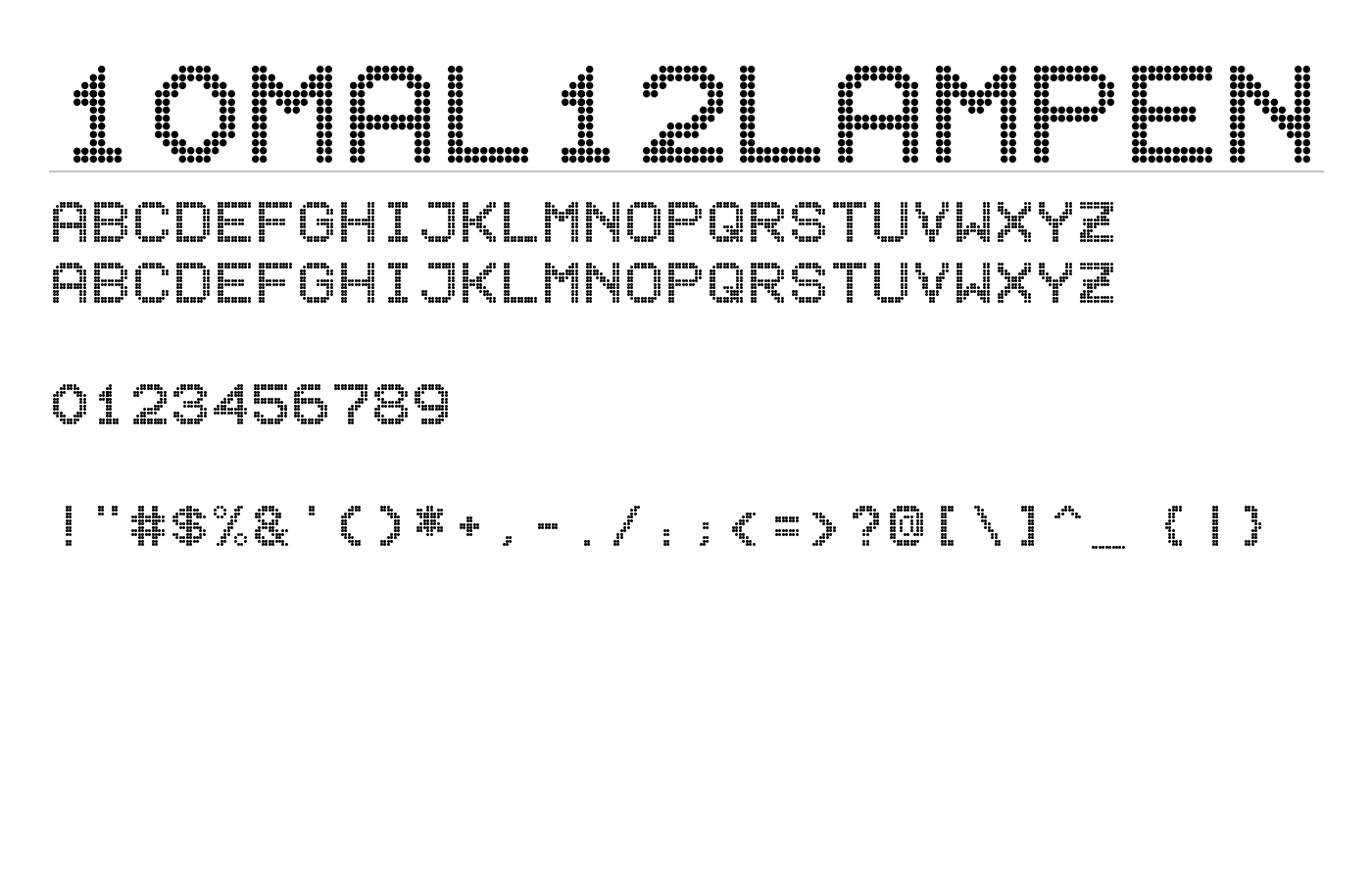
10mal12Lampen is a unique monospaced display font composed of small, evenly spaced dots forming clean, geometric letterforms. Its digital, tech-inspired style with consistent weight and minimal stroke contrast makes it perfect for futuristic or retro-futuristic designs, especially in logos, posters, and digital interfaces. This font stands out for projects seeking a modern, tech-savvy aesthetic with a pixel-art or electronic vibe.
10mal12Lampen Font
About 10mal12Lampen Font